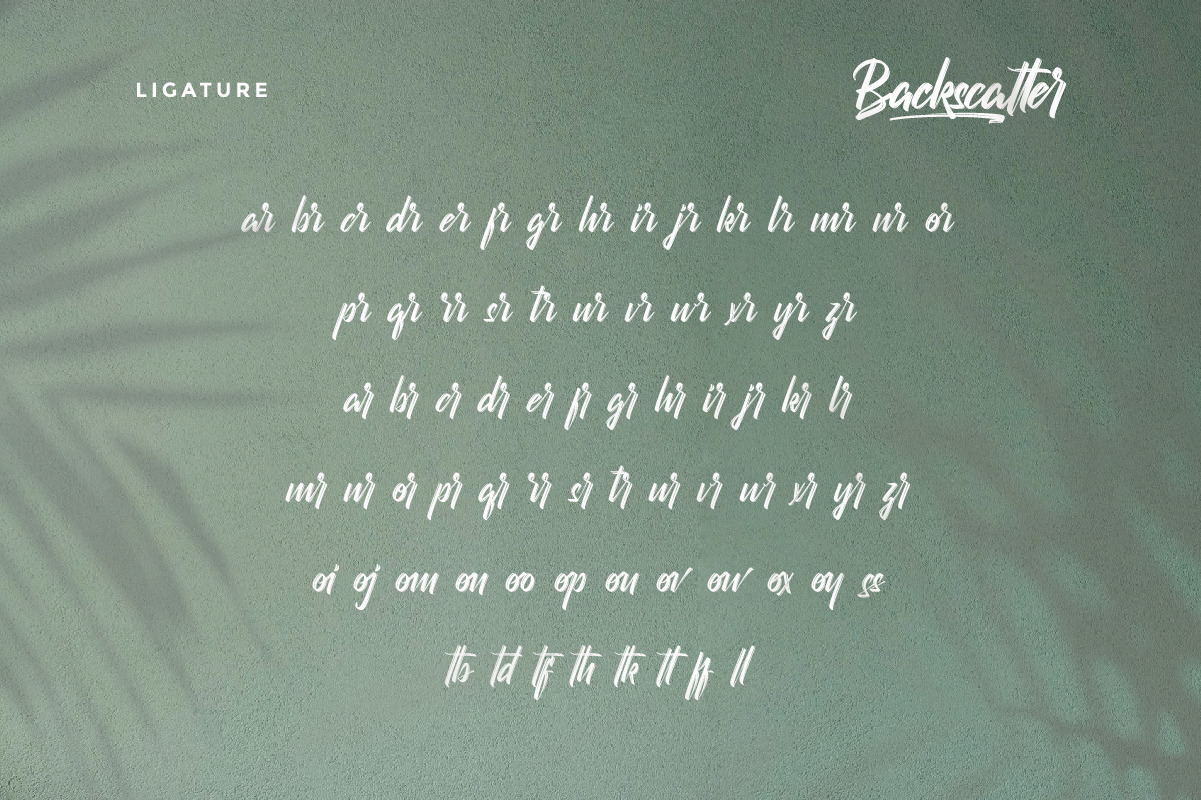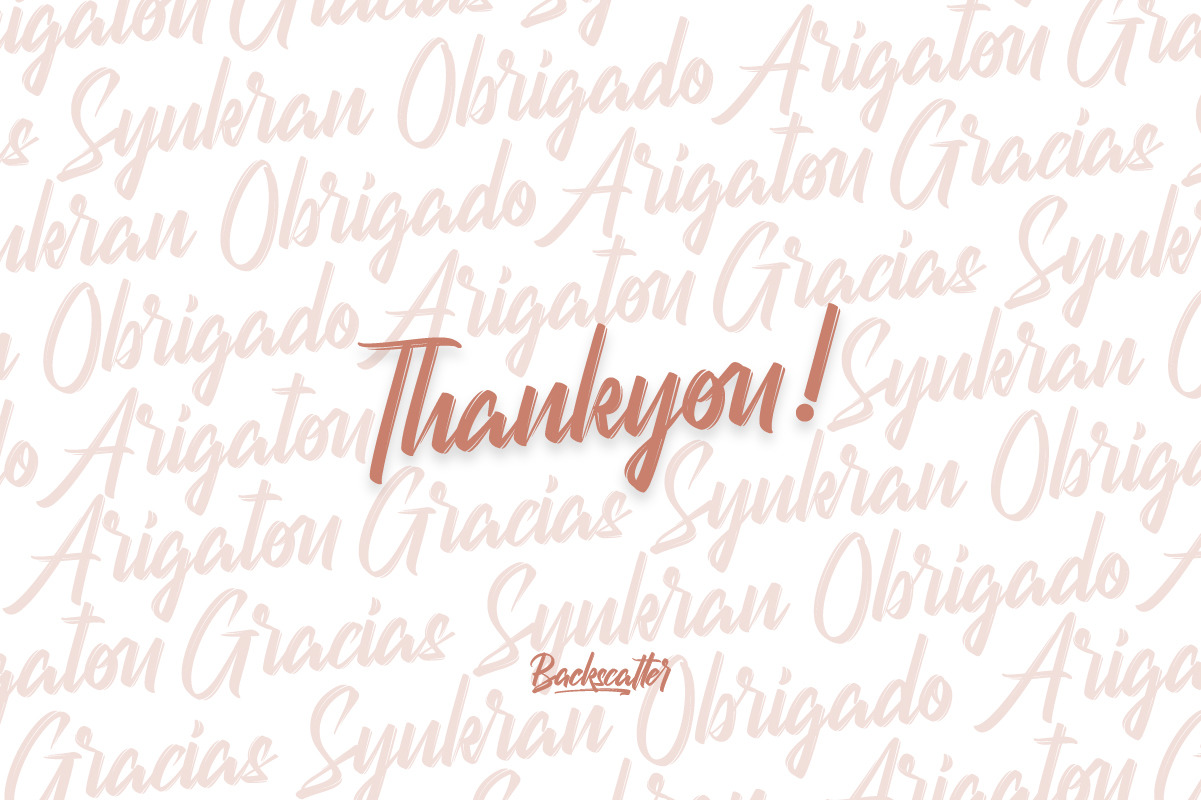
Backscatter Brush Script Font
Backscatter Font is a textured brush font with strong extreme, elegant and awesome style. Great for headlines, promotion, events, branding, advertising, magazine, signage, invitation, stationery, social media posts, label, or and any projects that need unique strong style. The theme/industries of this font is Vintage, Horror, Movie, Game, Magazine, Music, Video, Sports, Racing etc
Backscatter Font includes full set of AWESOME uppercase letters, numerals, a large range of punctuation and ligatures. With a unique textured effect.